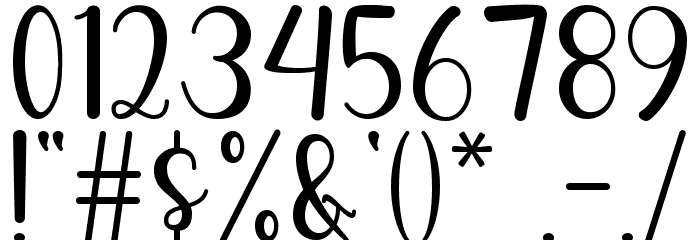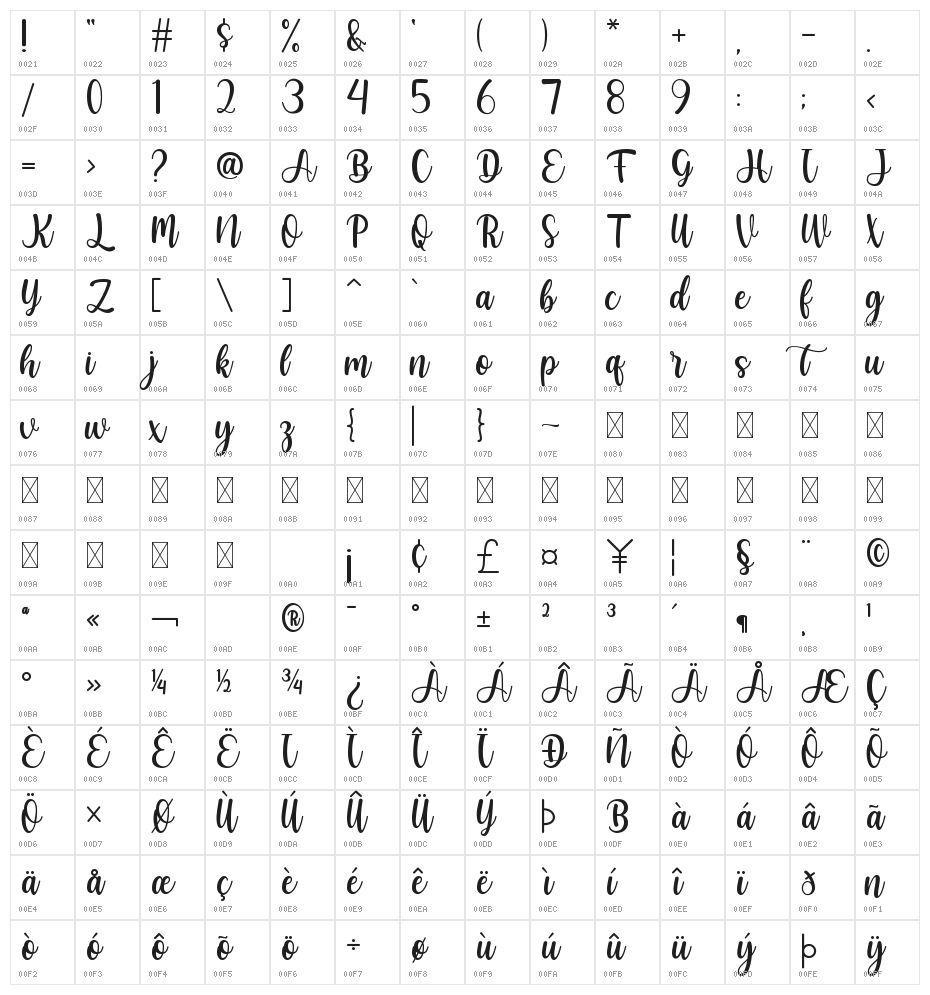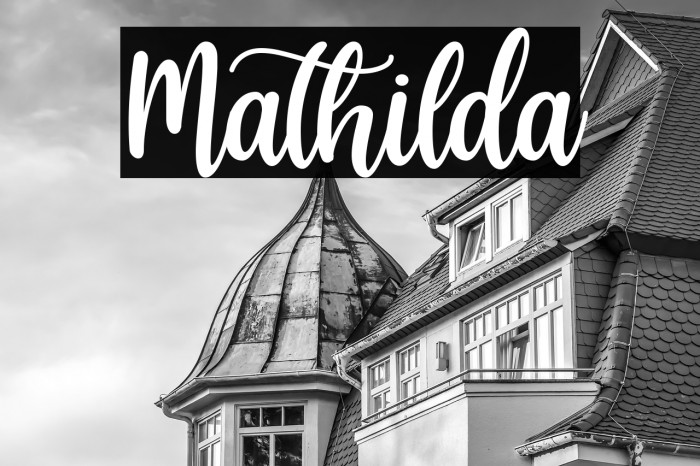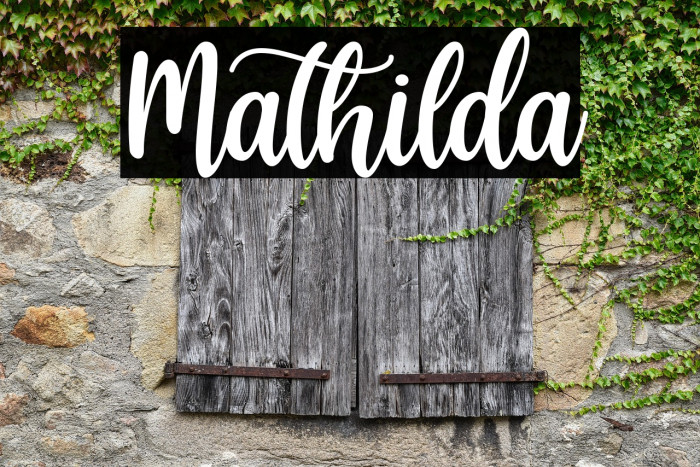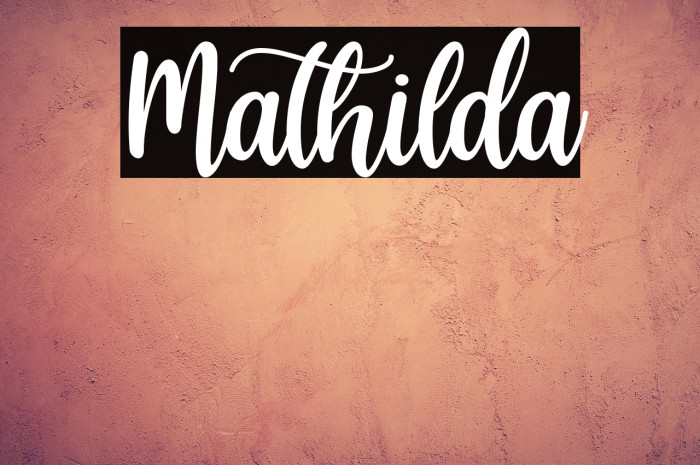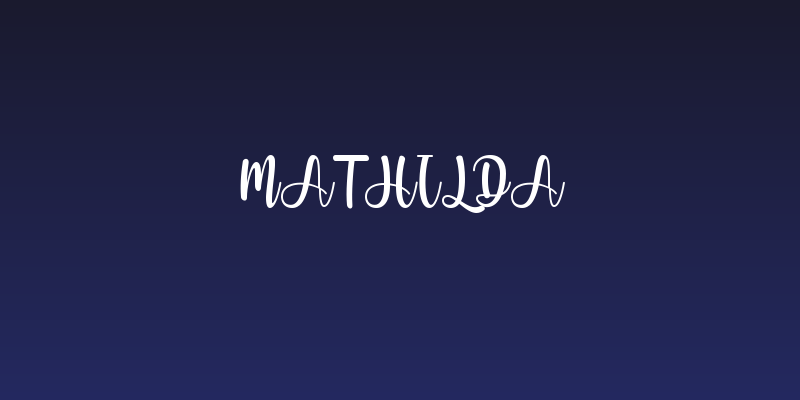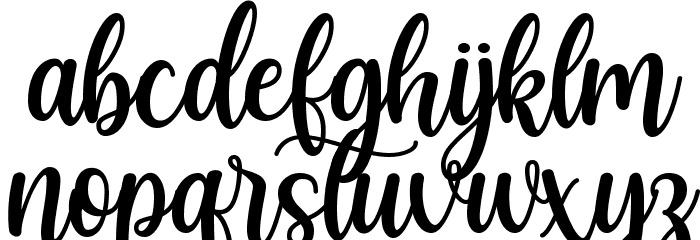
Mathilda Font
Mathilda Description
This font exhibits a playful and elegant script style, characterized by its flowing and interconnected letterforms. The uppercase letters are particularly ornate, with loops and swirls that add a touch of sophistication and charm. The lowercase letters maintain a consistent flow, enhancing readability while retaining a decorative flair. The numerals are clear and distinct, complementing the overall style. Special characters are thoughtfully designed, maintaining the font's cohesive aesthetic. This font is ideal for projects that require a personal and artistic touch.